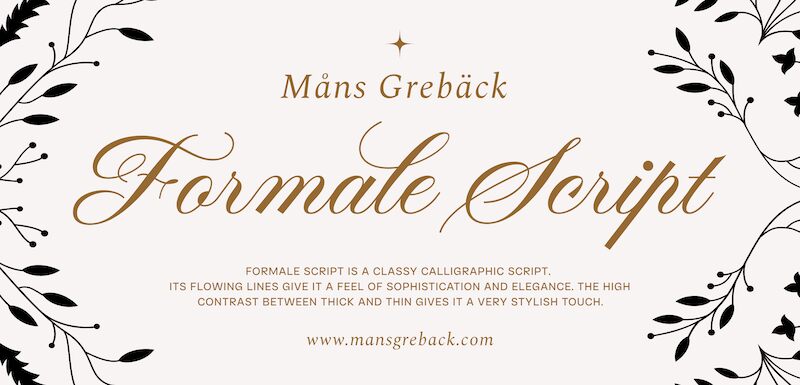
Formale Script font by Mans Greback is a free calligraphy font with thin, decorative lines, and curvy shapes. This stylish script will make whatever your message is be delivered elegantly in addition to grabbing the attention of whoever gets the chance to view it.
Enjoy using this classy typeface in branding and identity design, stationery designs (business cards and letterheads), advertisements, magazine headlines, book covers, photography captions, packaging labels (perfume and clothes for instance), greeting cards (graduation and wedding invitations), posters, social media artwork among other ideas.